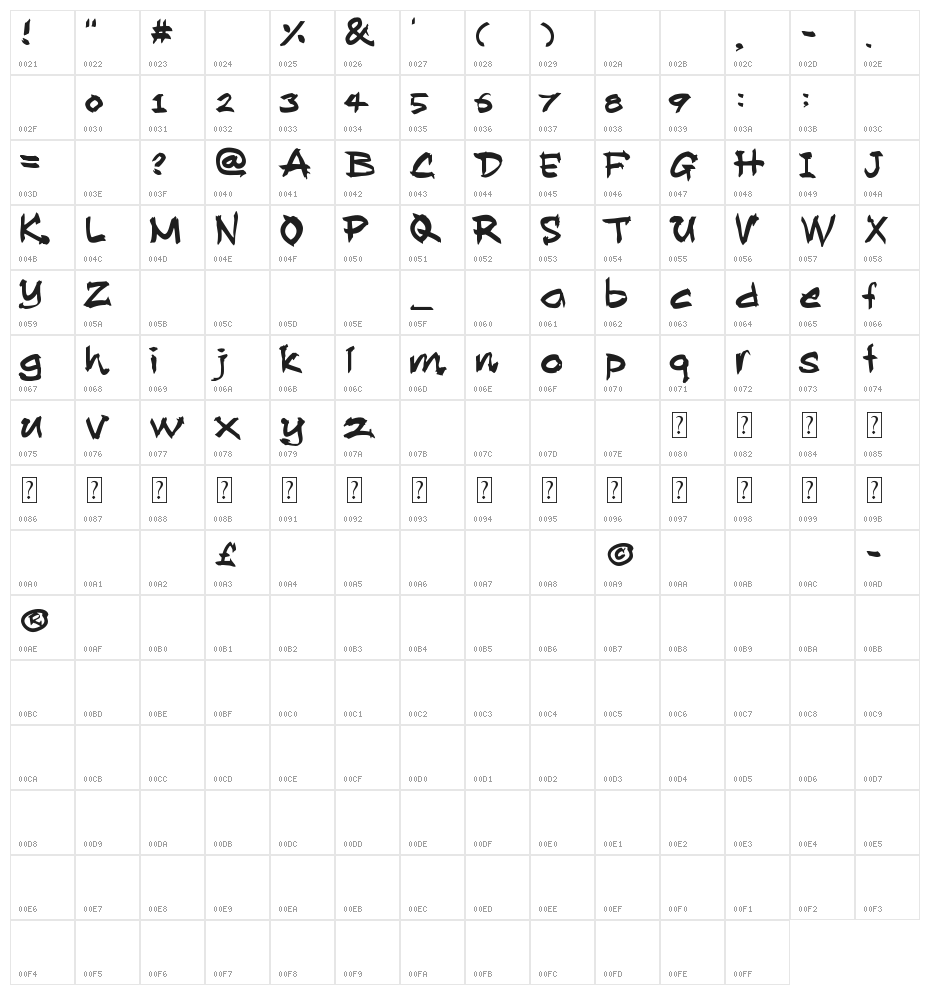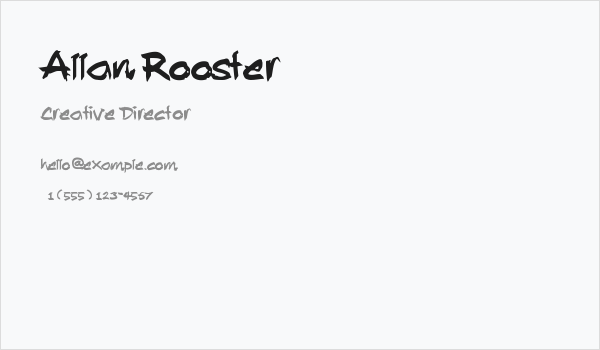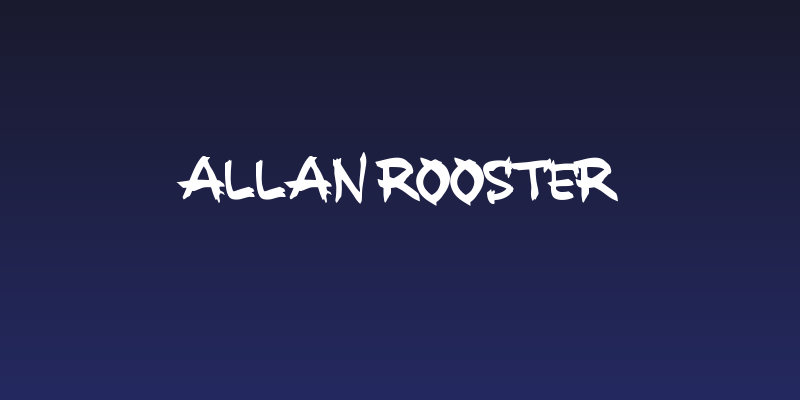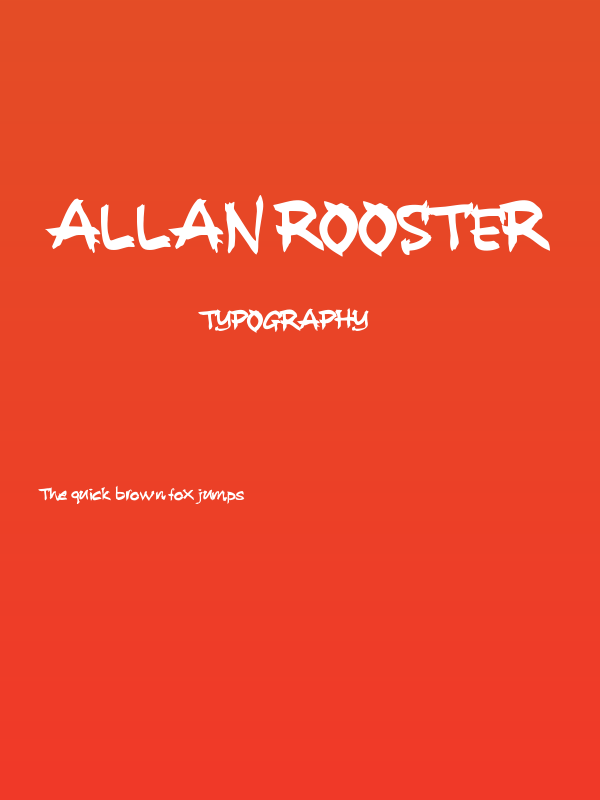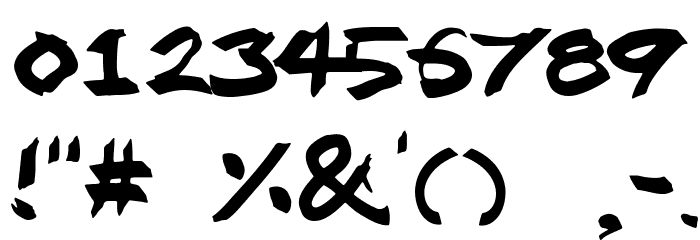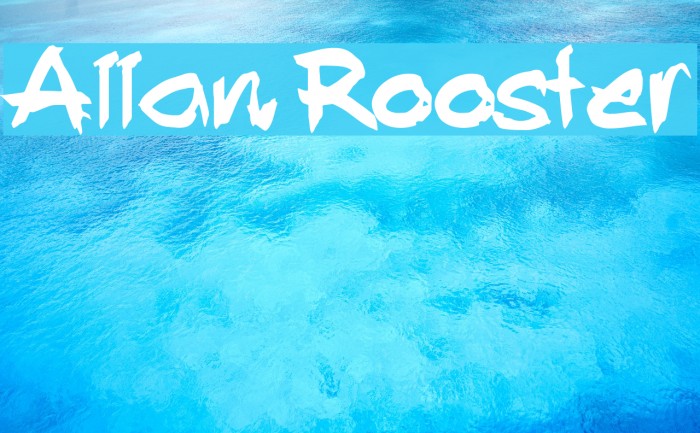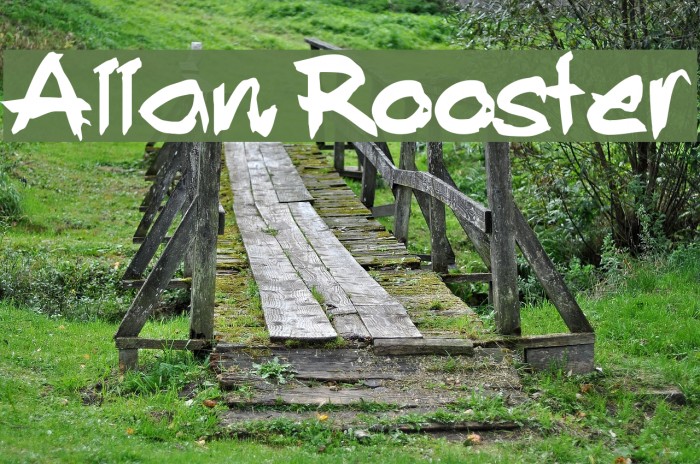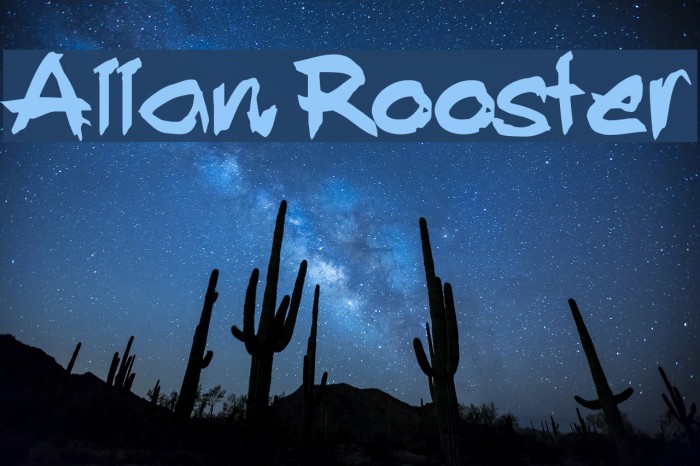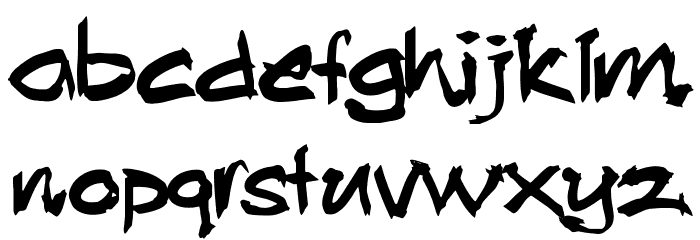
Allan Rooster Font
Allan Rooster Description
This font features a bold and dynamic style with a graffiti-like appearance. The characters are irregular and have a hand-drawn quality, giving them a unique and expressive look. The strokes are thick and uneven, adding to the font's energetic and rebellious feel. The uppercase and lowercase letters maintain a consistent style, with sharp angles and exaggerated curves. Numbers and special characters follow the same design principles, ensuring a cohesive look across all elements. This font is ideal for projects that require a bold and unconventional aesthetic.
| Overall Style | Modern, Urban |
| Proposed Projects | Perfect for street art designs, music album covers, event posters, and urban-themed branding. |